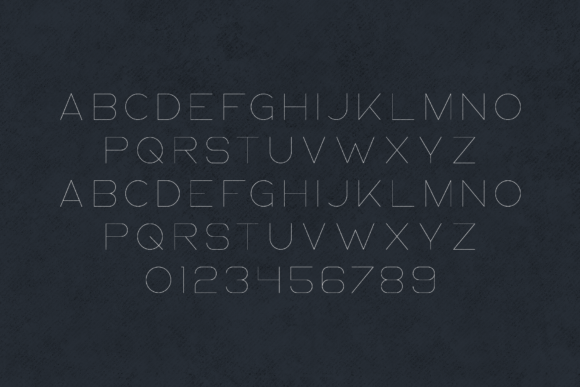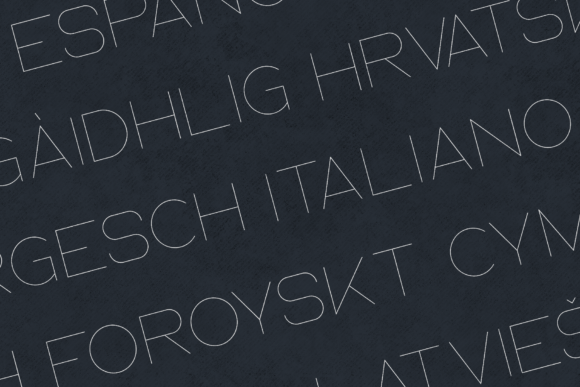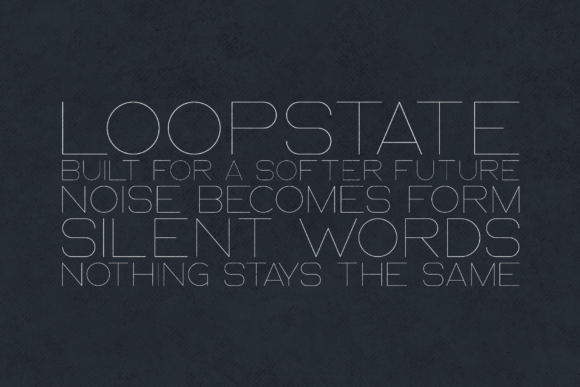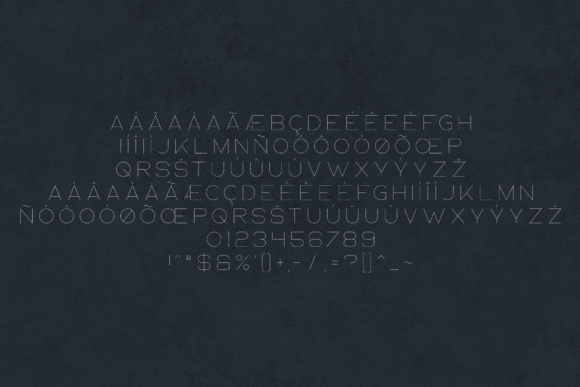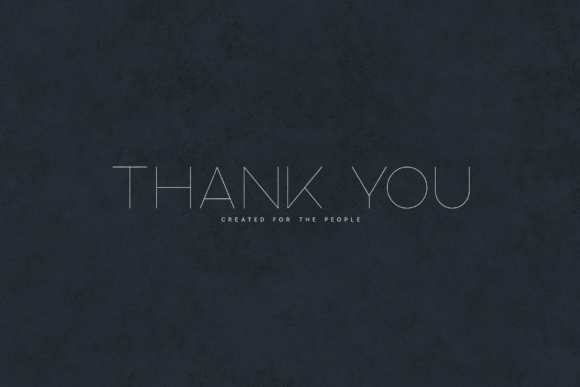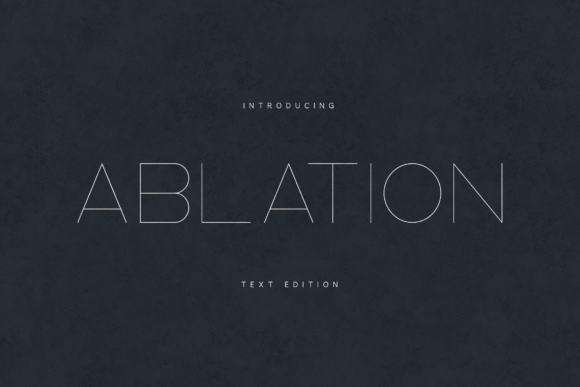
Ablation Font: Elevate Your Design with Ultra-Thin Geometric Elegance
In the realm of typography, few fonts manage to strike a balance between modernity and timeless elegance. Ablation, an ultra-thin geometric sans serif font, is one such exceptional design that embodies precision, balance, and sophistication. Crafted with a keen eye for detail, Ablation is built from clean monoline strokes and minimal structure, delivering a refined, architectural feel perfect for contemporary design work.
The Essence of Ablation Font
Ablation’s design philosophy revolves around the concept of “less is more.” This approach results in a clean, breathable look that feels both futuristic and timelessly elegant. The font features exceptionally thin, razor-sharp strokes and wide tracking, making it an exquisite choice for luxury branding, architectural titles, or sophisticated fashion magazines. When used in large headers, Ablation’s delicate geometry can be fully appreciated, adding a touch of professional polish to high-resolution photography and minimalist web designs.
Key Characteristics of Ablation Font
- Ultra-thin strokes: Ablation’s remarkably thin strokes give it a distinctive, elegant appearance that commands attention.
- Geometric sans serif: The font’s geometric design and sans serif structure contribute to its modern, architectural feel.
- Wide tracking: Ablation’s wide tracking ensures that each letter stands out, enhancing readability and visual appeal.
- Display purposes: Designed specifically for display purposes, Ablation excels in large headers and titles.
Design Applications of Ablation Font
Ablation’s versatility and sophistication make it suitable for a variety of design applications, including:
- Luxury branding: Ablation’s refined, elegant appearance makes it an excellent choice for luxury brands seeking to convey sophistication and high-end quality.
- Architectural titles: The font’s architectural feel and clean lines make it perfect for architectural titles, adding a touch of professionalism and expertise.
- Fashion magazines: Ablation’s elegant, modern design makes it an excellent fit for fashion magazines, particularly in headlines and titles.
- Web design: Ablation’s minimalist aesthetic and clean lines make it an excellent choice for web design, particularly in high-end or luxury websites.
Pairing Ablation Font with Other Typefaces
To create a striking contrast and add visual interest, consider pairing Ablation with a heavy, bold sans-serif font. This combination allows Ablation’s delicate geometry to shine while adding a layer of depth and contrast to your design. Some popular pairing options include:
- Bold sans-serif fonts: Fonts like Arial Black, Impact, or Museo offer a striking contrast to Ablation’s ultra-thin strokes.
- Serif fonts: Pairing Ablation with a serif font like Georgia or Merriweather can add a touch of sophistication and elegance to your design.
Tips for Using Ablation Font Effectively
To get the most out of Ablation, consider the following tips:
- Use it sparingly: Ablation’s delicate geometry can be overwhelming if overused. Use it sparingly in headlines and titles to create a lasting impression.
- Choose the right size: Ablation is designed for display purposes. Use it in large sizes to appreciate its elegant, geometric design.
- Experiment with color: Ablation’s ultra-thin strokes can be challenging to read in certain colors. Experiment with different color combinations to find the perfect balance.
Ablation font is a masterpiece of modern typography, offering a unique blend of elegance, sophistication, and precision. Its ultra-thin geometric design makes it perfect for luxury branding, architectural titles, fashion magazines, and high-end web designs. By understanding its key characteristics, design applications, and pairing options, designers and crafters can unlock Ablation’s full potential and elevate their designs to new heights.